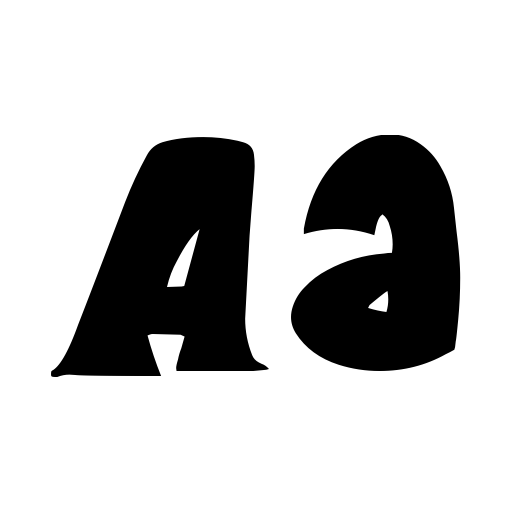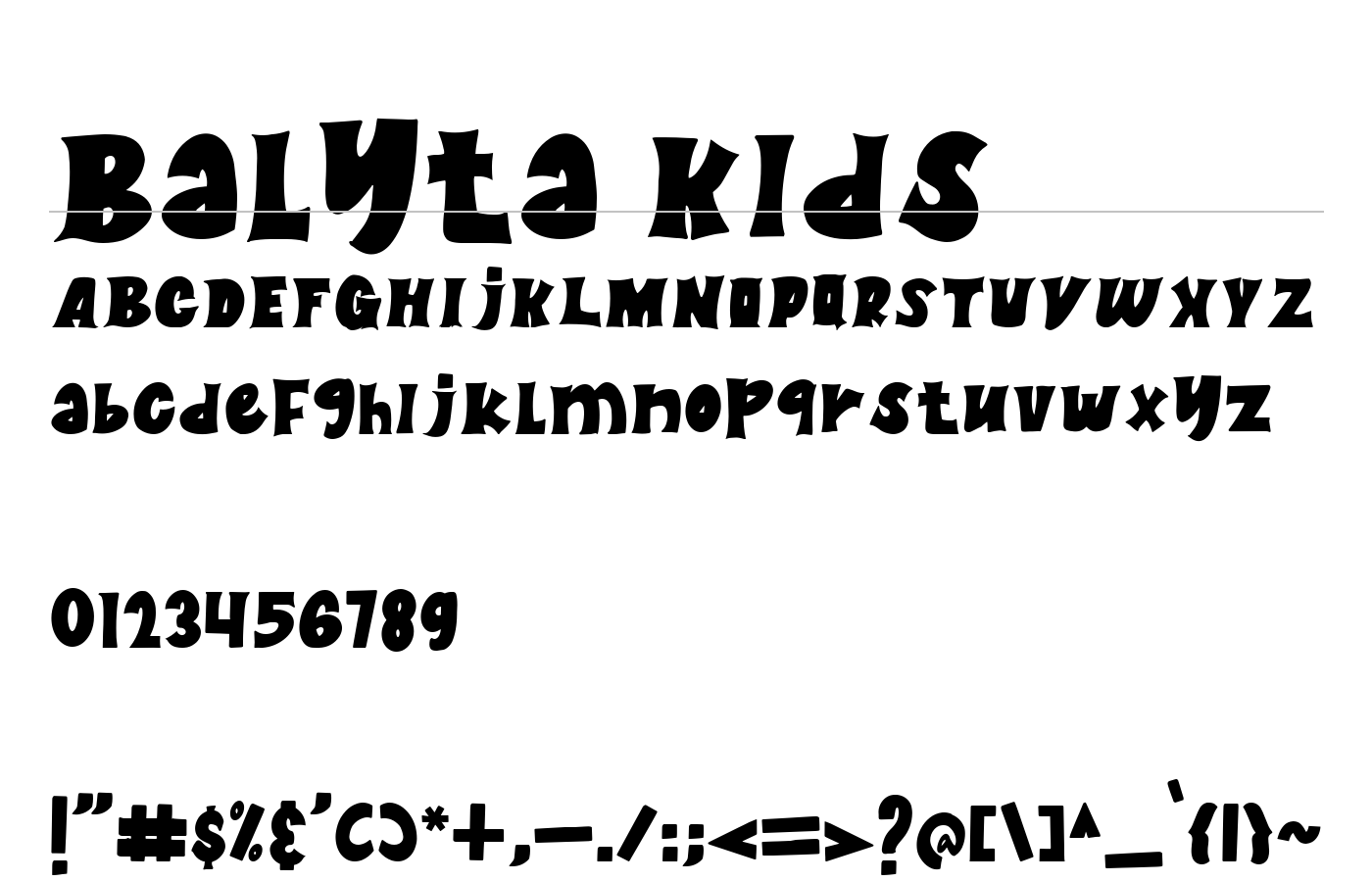
Balyta Kids is a bold, playful sans serif font with a chunky, irregular style that feels fun and energetic, perfect for children’s projects. Its heavy weight and quirky letter shapes create a friendly, informal look that works well in logos, posters, and packaging aimed at younger audiences. This font adds a lively, approachable personality to designs while maintaining clear readability for headlines and display use.
Balyta Kids Font
About Balyta Kids Font
| Font family | Balyta Kids Font |
| Designer | Wildan Suprian Syah |